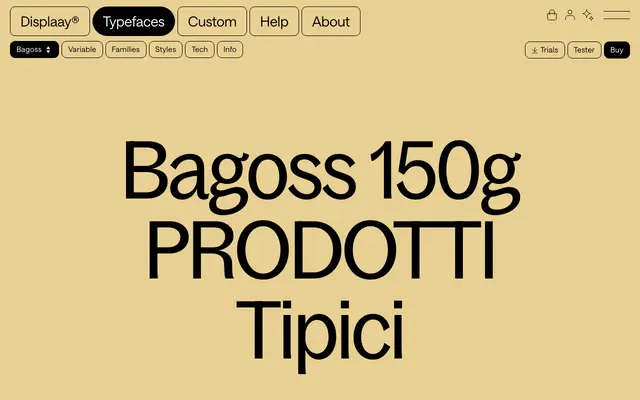
Bagoss Standard
Displaay Type Foundry · Daniel Quisek · 2022
The standard width of Bagoss by Daniel Quisek, a high-contrast sans with a tiny single-edge serif and optional cursive forms.
The Standard width of the Bagoss Collection by Daniel Quisek, released February 2022. Twelve styles run across six weights with matching italics, and the wider Bagoss Collection extends into Condensed and Extended widths for a total of thirty-six styles, with a three-axis variable cut on Weight, Slant and Width. Stroke contrast was increased through the design and a tiny single-edge serif developed. Cursive forms are unlocked via OpenType features.
Displaay class Bagoss under sans / grotesque. The Bagoss Collection holds three width families: Condensed, Standard and Extended. Stroke contrast was raised over time and a tiny single-edge serif developed, with cursive forms unlocked via OpenType.